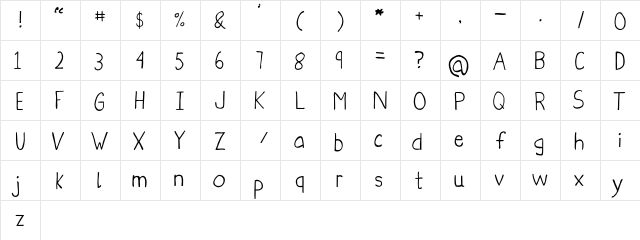
Obelisque Regular
| Foundry | Brandon Hunter |
Design Context for Obelisque Typeface
Obelisque takes a measured approach to typography — its balanced proportions and neutral character make it a reliable workhorse for both digital and print work.